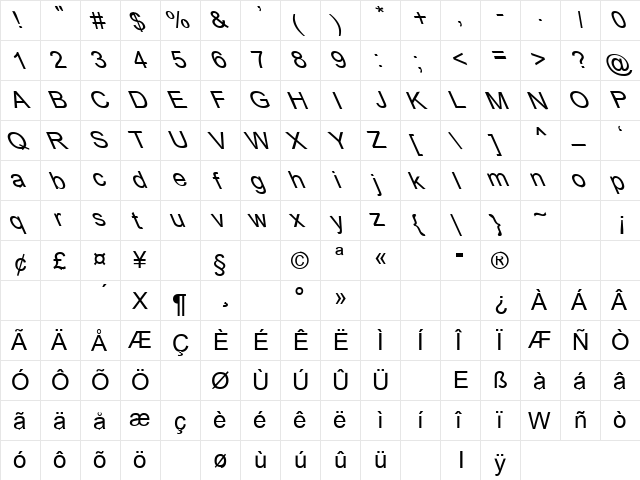
Communication33 Regular
Design Context for Communication33 Typeface
Communication33 takes a measured approach to typography — its balanced proportions and neutral character make it a reliable workhorse for both digital and print work.
Pro Tip: Use Communication33 in both headline and body roles to test its range before committing to a single application.